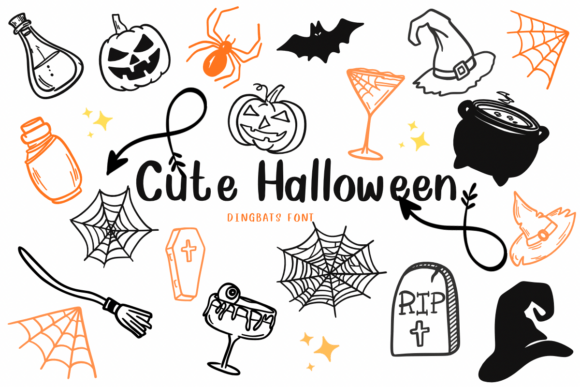
Celebrating Spooky Season with Style: Introducing Cute Halloween Font
Do you remember that moment when you were brainstorming ideas for your Halloween party decorations, and suddenly, a burst of creativity hit you? You envisioned a haunted house entrance with cobwebs, jack-o’-lanterns, and ghostly figures. But, how do you bring that vision to life? That’s where the right font comes in – specifically, the Cute Halloween Font.
This adorable dingbats font is perfect for adding a spooky touch to your creative projects. Whether it’s a wedding invitation, DIY craft, or logo design, the Cute Halloween Font can help you create a lasting impression. Its unique design makes it valuable for designers who want to add a playful twist to their work. With the Cute Halloween Font, you can take your spooky season projects to the next level.
Cute Halloween Font Key Features
- Font Style: A playful, whimsical font perfect for Halloween-themed designs and decorations.
- Unique Characteristics: Features a mix of bold and cursive elements, creating a unique and eye-catching aesthetic.
Cute Halloween Font Review
I recently had the chance to work with the “Cute Halloween Font” and I must say it’s a mixed bag. Here are my thoughts.
- Fun and playful aesthetic: This font is perfect for adding a touch of whimsy to your Halloween-themed designs.
- Well-suited for children’s materials: The cute and bubbly nature of the font makes it a great choice for kids’ party invitations, coloring books, and other materials.
- Easy to read: Despite its playful appearance, the font is still easy to read and understand, even for those who are not familiar with it.
- Limited versatility: While the font is great for Halloween-themed designs, it may not be the best choice for more formal or professional projects.
- Lack of sophistication: The font’s cute and playful nature may not be suitable for designs that require a more mature or sophisticated tone.
- Not suitable for large blocks of text: The font’s small size and playful nature make it difficult to use for large blocks of text, such as body copy.
Overall, I would say that the “Cute Halloween Font” is a fun and playful addition to any designer’s toolkit. While it has its limitations, it’s perfect for specific projects that require a touch of whimsy and personality.